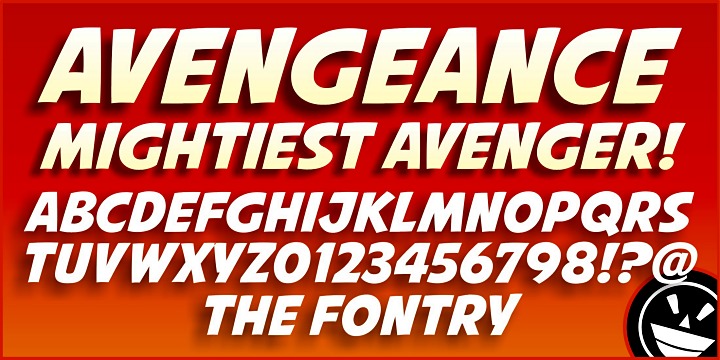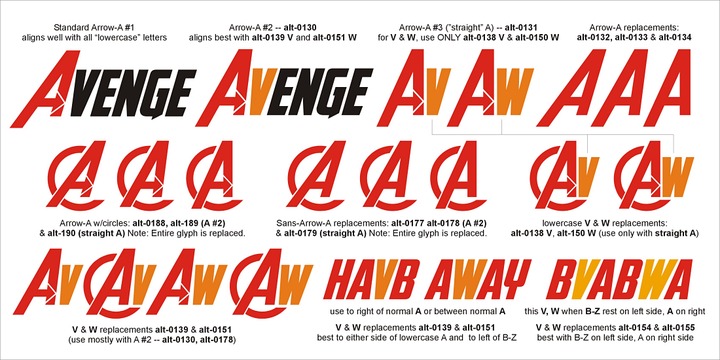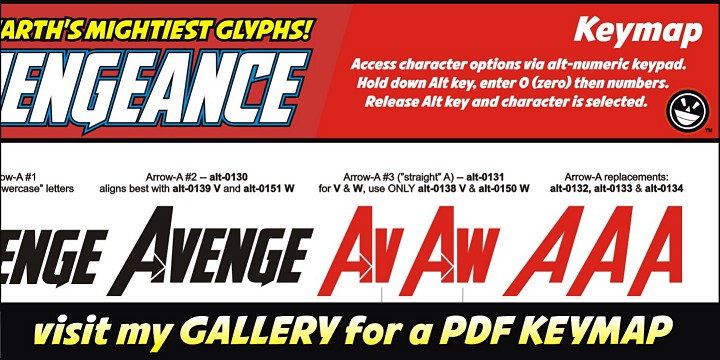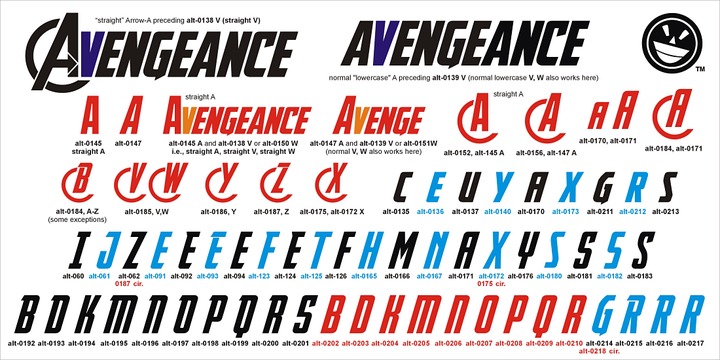
Avengeance Font Family
Assembled for the first time anywhere with complete Avengeance! Gather your team and craft the mightiest logo on earth with a collection of the most powerful glyphs in existence.
No time for puny layouts. Grab a hammer and smack these letters around until the results are golden. Smack them a little harder and you might just see stars—or is that an arrow? Is that a giant man in red underwear? I can’t say. There’s a wasp buzzing in my ear. But alas, let no trickster delay thee. The power to craft a proud statement of graphic import is finally at hand. But first you’ll need to click on the gallery tab above and dowload the PDF KEYMAP, because some “assembly” is definitely required.
Avengeance
Avengeance Mightiest Avenger